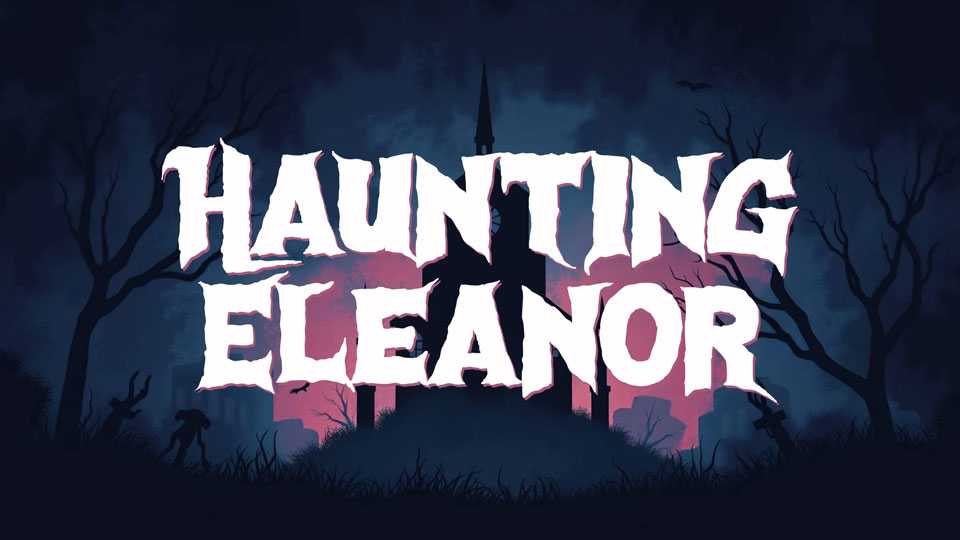
Download Haunting Eleanor font, a hand-lettered typeface inspired by the chilling title card of the 1963 classic The Haunting. Its gothic, ghostly strokes preserve the unsettling mood of the original film while bringing a unique, haunting presence to modern design.